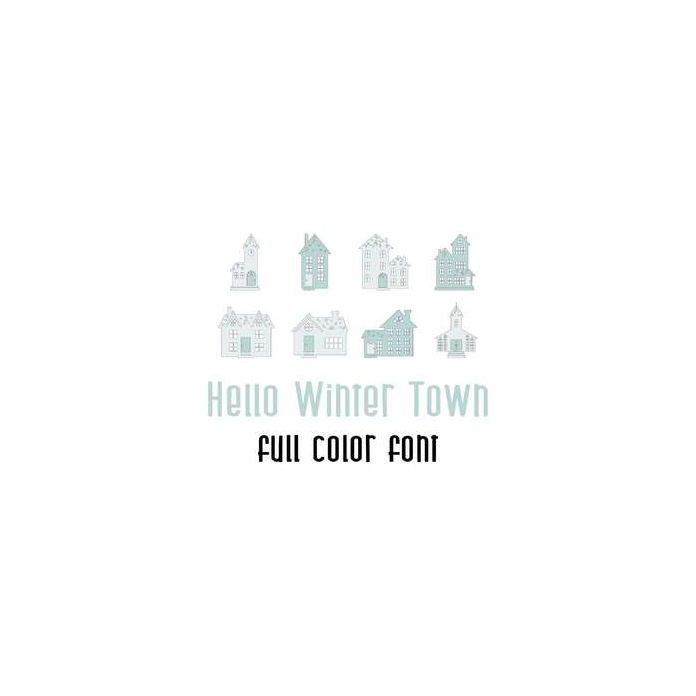
This adorable beautiful full color doodlebat font features simple winter homes, perfect for cards, crafts, gifts, decor, scrap book pages, planner stickers and more!